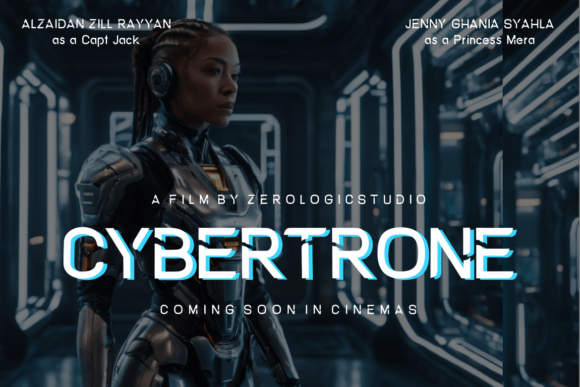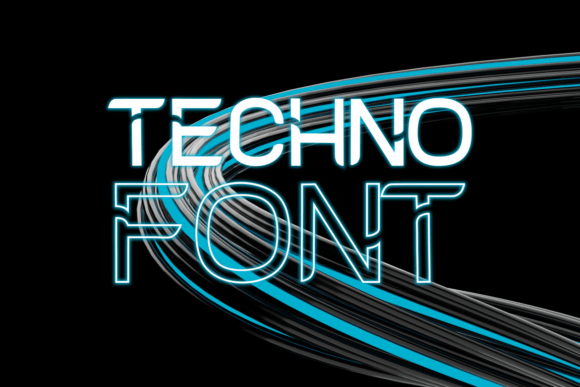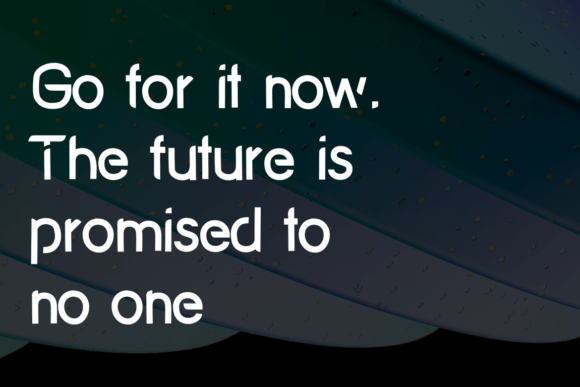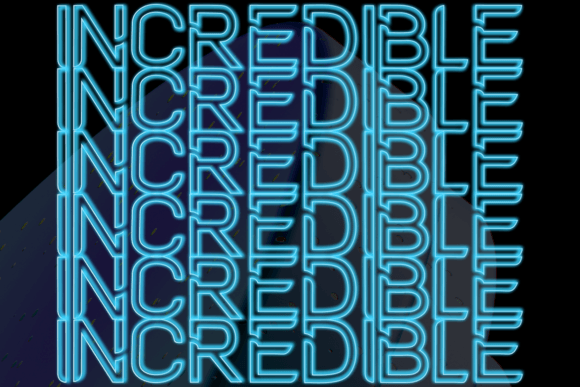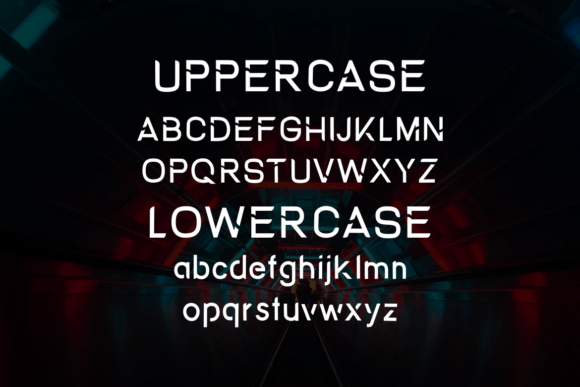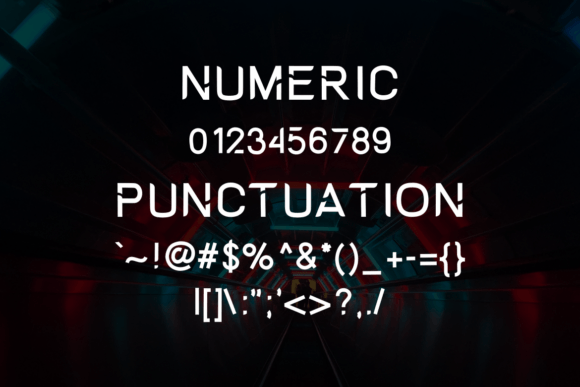
A New Era in Typography: Introducing Aerotechno Font
Imagine you’re brainstorming a campaign for a cutting-edge tech company. You’re surrounded by sleek lines, neon lights, and the hum of innovation. Your mind is racing with ideas, and you know you need a font that’s just as forward-thinking as the brand you’re designing for. This is where the Aerotechno Font comes in – a game-changing display font that’s about to revolutionize your designs.
With its futuristic style and bold characteristics, the Aerotechno Font is perfect for making a statement. Whether you’re creating titles, typography, posters, magazines, brochures, packaging, or websites, this font is sure to elevate your designs to the next level. As a designer, you know how valuable it is to have a versatile font that can adapt to any project, and that’s exactly what the Aerotechno Font delivers.
Aerotechno Font Key Features
- Font Family: Aerotechno Font is a unique sans-serif font designed for technical and scientific purposes.
- Font Size: Aerotechno Font supports a wide range of font sizes, from 8pt to 72pt, allowing for precise control over text display.
- Unique Characteristics: The font features a distinctive blend of technical and futuristic elements, making it ideal for use in infographics, technical manuals, and scientific publications.
- Language Support: Aerotechno Font supports a wide range of languages, including Latin, Cyrillic, and Greek scripts.
Aerotechno Font Review
Overall, I think the Aerotechno Font has some great features that make it a solid choice for designers. ✨ Here are some of the things that stood out to me:
- The font’s futuristic and high-tech aesthetic is perfect for projects that require a modern, cutting-edge feel.
- The font’s clean lines and minimalistic design make it easy to read and versatile for use in a variety of contexts.
- The font’s customizability options, such as the ability to adjust the font’s size and color, make it easy to integrate into existing designs.
However, there are some limitations to consider. ⚠️ Here are a few things that I think could be improved:
- The font may be too futuristic or high-tech for some projects, and may not be suitable for more traditional or conservative designs.
- The font’s minimalistic design may make it difficult to use in situations where a lot of text is required, as it can become overwhelming or difficult to read.
- The font’s customizability options, while useful, can also make it difficult to achieve a cohesive look and feel in a design.
Overall, I think the Aerotechno Font is a solid choice for designers who are looking for a modern, cutting-edge font for their projects. While it may not be suitable for every design need, it is a versatile and customizable option that can be used in a variety of contexts.
Tips for Getting the Most Out of Aerotechno Font
Aerotechno Font is a modern and sleek font that works well for a variety of designs. Here are some tips for getting the most out of it:
- Use it for titles and headings to add a touch of sophistication to your design.
- Pair it with bold fonts to create a striking contrast.
- Use it for digital designs such as social media graphics and websites.
Aerotechno Font is commonly used for:
- Corporate branding and identity.
- Digital marketing and advertising.
- Graphic design and visual arts.